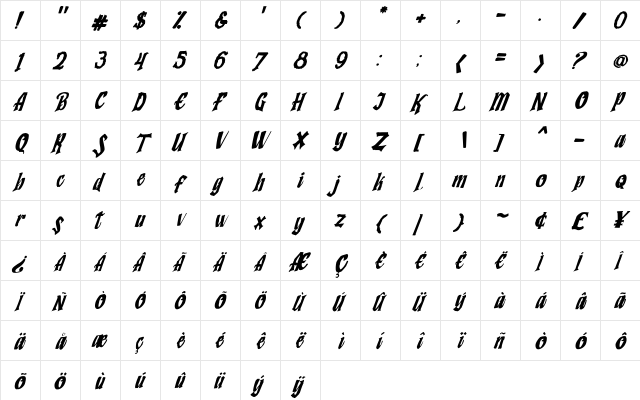
Humingson Rough Italic
Design Context for Humingson Typeface
Humingson embraces imperfection — its rough, textured character adds raw authenticity to designs that want to feel lived-in and unconventional. The dynamic lean of this cut emphasises speed and emphasis in any layout.
A strong fit for alternative music projects, graffiti-adjacent design, and anything that deliberately resists polish.
Pro Tip: Use Humingson at larger sizes where the texture and irregularity of each letterform can be clearly seen — it loses its character at small sizes.